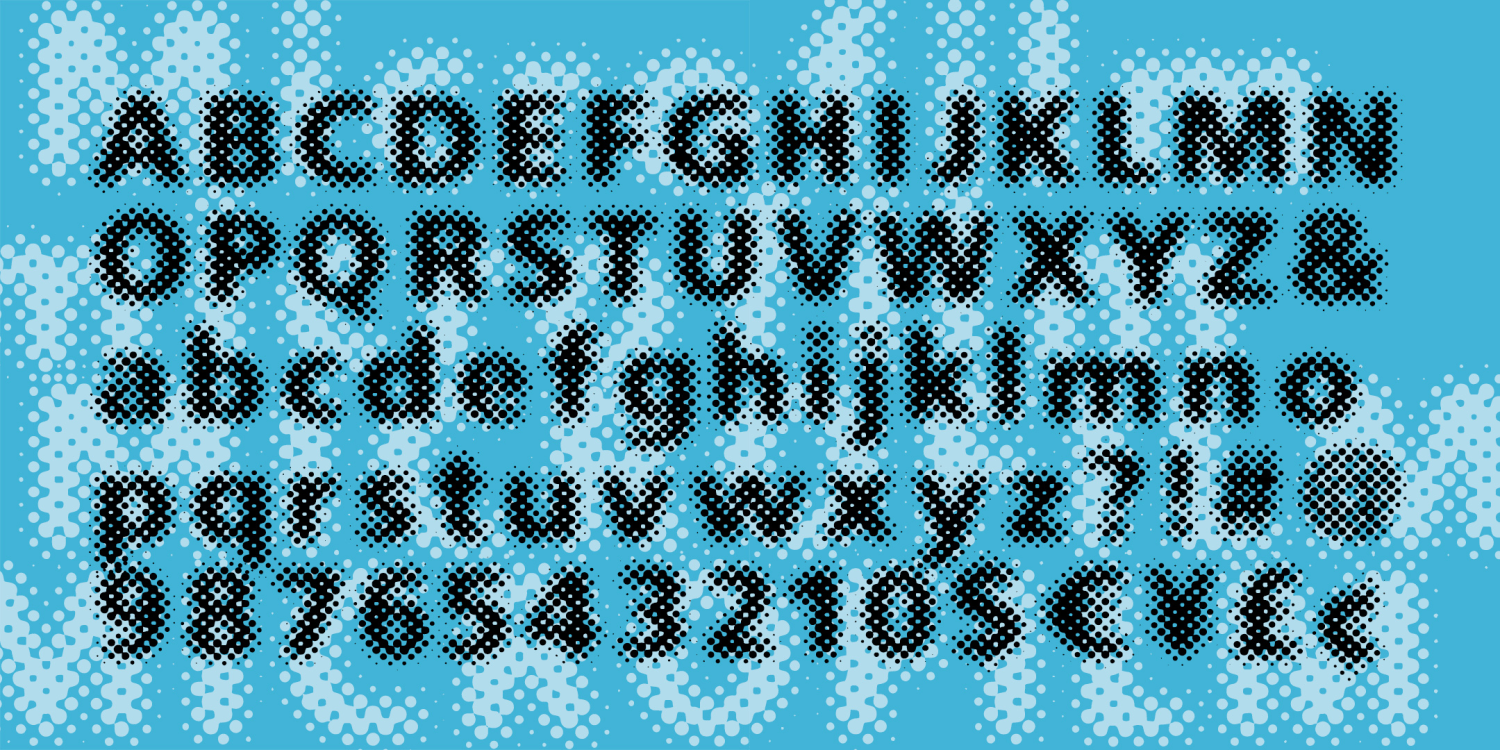
HomeFont BrosGroovy (1966-1978)Microfilm Groovy (1966-1978)Special EffectSans SerifWacky Microfilm FacebookXPinterestWhatsApp 1 of 1 About Microfilm MICROFILM is a special effects font with a strong dot screen texture, a mix of past and future. It resembles a bold sans serif font that's somewhat out of focus.  DOWNLOAD ON FONT BROSThis font is sold and delivered by Font Bros. Font Canyon may earn a commission if you buy through this link. People also explored Voltura Font Vinalla Font Abnormality Font Skeletons Font Bentley Font Qolinds Font Creamy Mocha Font Martinez Font Brilliant Garden Font 366 0 TagsMicrofilm Font Previous articleWestkreepNext articleMatchbox Font Collection LEAVE A REPLY Cancel reply Comment: Please enter your comment! Name:* Please enter your name here Email:* You have entered an incorrect email address! Please enter your email address here Website: Save my name, email, and website in this browser for the next time I comment. Personal Use Free Market Love Personal Use Free Read more about this font Qiwqiw Personal Use Free Read more about this font BD Spinner Personal Use Free Read more about this font Child Writing Free Personal Use Free Read more about this font BLOG Fonts That Capture the Spirit of New York City New York City is more than just a place—it’s an experience, a rhythm, a visual language... Where to Buy American Fonts Online in 2024 The 10 Best Handwriting Fonts to Add Personality to Your Designs Elegant Wedding Invitation Fonts – Handwritten & Script Fonts